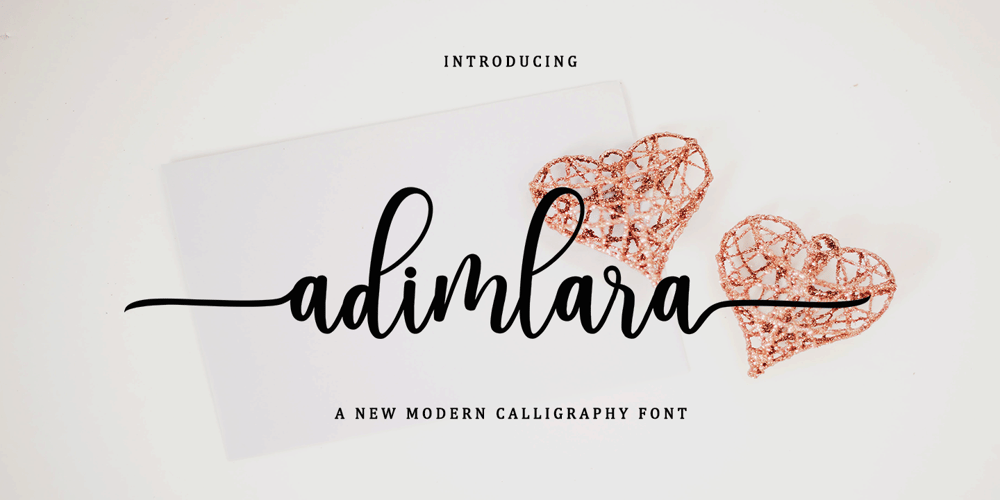
Adimlara
Adimlara font
Adimlara Font Family was designed by Muhibbus Sabri and published by Queenop Studio. Adimlara contains 1 styles and family package options. Adimlara is attractive because it is sleek, clean, feminine, sensual, glamorous, simple and very easy to read, thanks to its many luxurious letter joints. I also offer a number of viable alternative styles for all letters. Classic style is very suitable to be applied in various formal forms such as invitations, labels, restaurant menus, logos, fashion, make up, stationery, novels, magazines, books, greeting cards/weddings, packaging, labels or all kinds of advertisements. for your purposes.